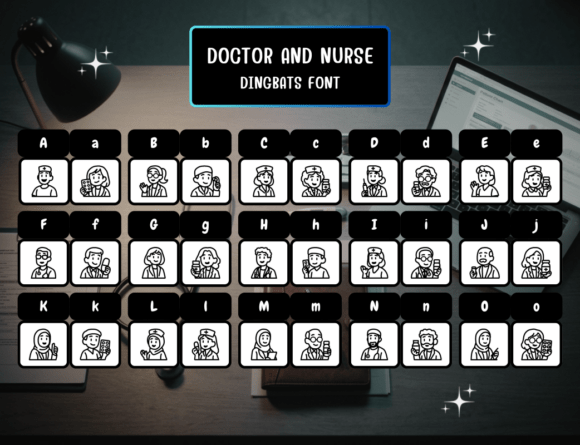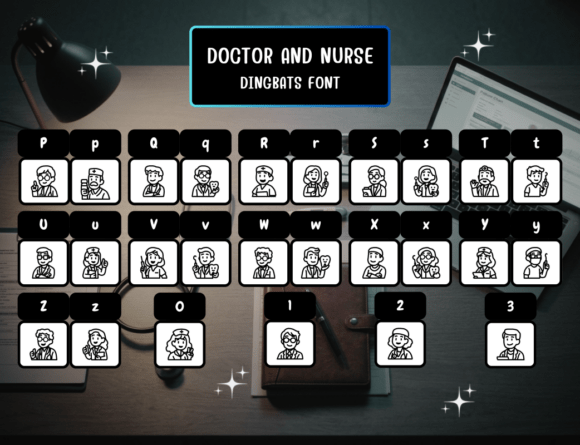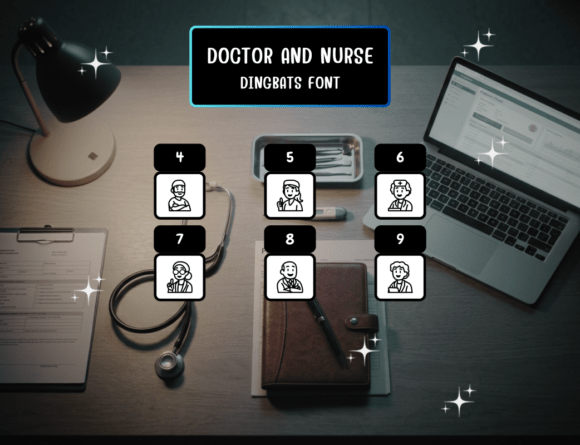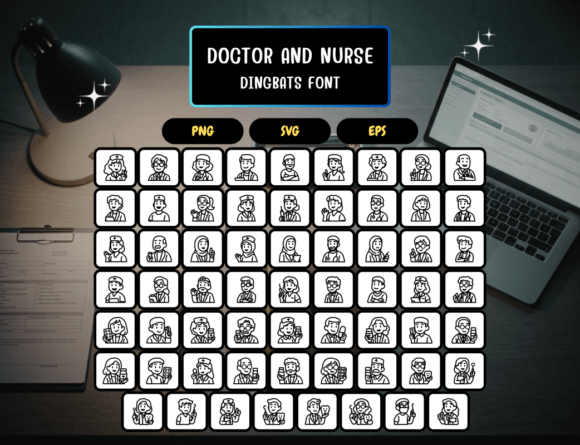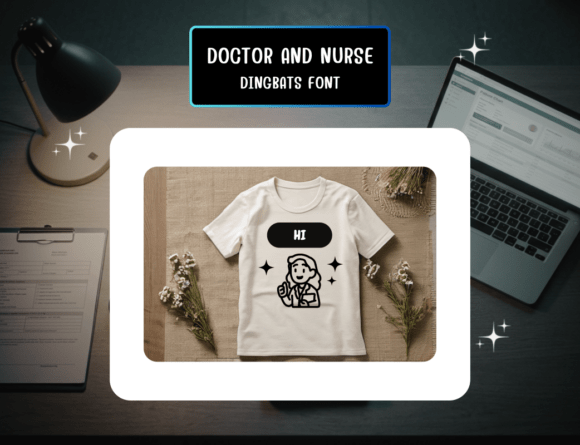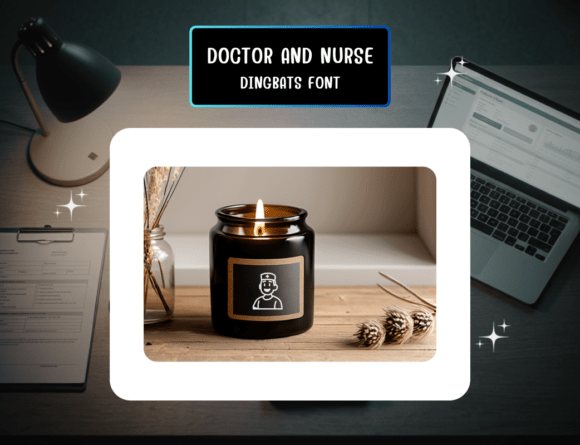
Introducing Doctor and Nurse Font: A Playful Dingbats Font for Medical Themes
Are you a designer, crafter, or DIY enthusiast looking for a unique and charming font to add a touch of personality to your medical-themed projects? Look no further than the Doctor and Nurse Font, a delightful Dingbats font filled with hand-drawn illustrations of doctors, nurses, and other medical professionals. This versatile font is perfect for a wide range of creative projects, from labels and packaging to stickers, greeting cards, educational materials, and more.
What is a Dingbats Font?
For those who may be unfamiliar, a Dingbats font is a type of symbol font that features a collection of illustrations or icons, rather than traditional alphabet characters. Dingbats fonts are often used to add visual interest and personality to designs, and can be used to create everything from decorative borders and frames to icons and graphics.
Features of Doctor and Nurse Font
The Doctor and Nurse Font is a comprehensive collection of hand-drawn illustrations, featuring a wide range of medical professionals, including doctors, nurses, surgeons, and more. The font includes:
- Multiple doctor and nurse illustrations, including characters with different expressions and poses
- Medical equipment and supplies, such as stethoscopes, thermometers, and medication bottles
- Medical symbols and icons, such as the Rod of Asclepius and the Red Cross
- Fun and playful illustrations, such as cartoon-style medical characters and humorous medical-themed graphics
Uses for Doctor and Nurse Font
The Doctor and Nurse Font is incredibly versatile, and can be used for a wide range of creative projects, including:
- Labels and packaging: Add a touch of personality to your medical-themed labels and packaging with custom illustrations and graphics created using the Doctor and Nurse Font.
- Stickers and decals: Create fun and colorful stickers and decals featuring medical professionals and symbols.
- Greeting cards and invitations: Design custom greeting cards and invitations for medical professionals, patients, or medical-themed events.
- Educational materials: Create engaging and interactive educational materials, such as worksheets, posters, and presentations, for medical students or patients.
- Creative projects: Use the Doctor and Nurse Font to add a touch of whimsy and personality to your creative projects, such as scrapbooking, crafting, or DIY projects.
Why Choose Doctor and Nurse Font?
So why choose the Doctor and Nurse Font for your medical-themed projects? Here are just a few reasons:
- Unique and charming illustrations: The Doctor and Nurse Font features a wide range of unique and charming illustrations that are sure to add a touch of personality to your designs.
- Versatile: The font can be used for a wide range of creative projects, from labels and packaging to stickers, greeting cards, and more.
- High-quality: The illustrations in the Doctor and Nurse Font are high-quality and scalable, making them perfect for use in a variety of designs.
If you’re looking for a unique and charming font to add a touch of personality to your medical-themed projects, look no further than the Doctor and Nurse Font. With its wide range of hand-drawn illustrations, versatility, and ease of use, this font is perfect for designers, crafters, and DIY enthusiasts alike. So why wait? Download the Doctor and Nurse Font today and start creating your own medical-themed masterpieces!